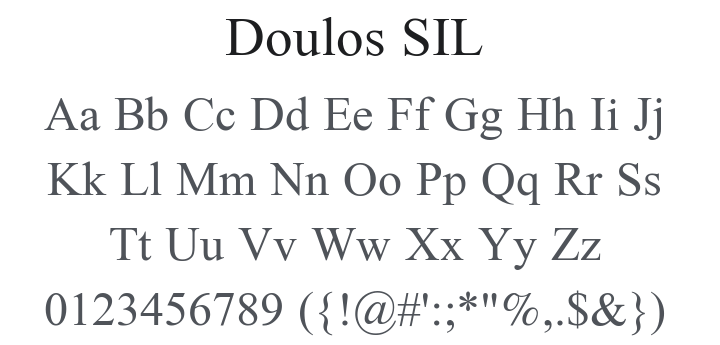
Doulos SIL Font
About Doulos SIL
Doulos SIL is a Unicode-based font family that supports the wide range of languages that use the Latin and Cyrillic scripts, whether used for phonetic or orthographic needs. Linguists appreciate the wide range of characters and symbols useful in their work.